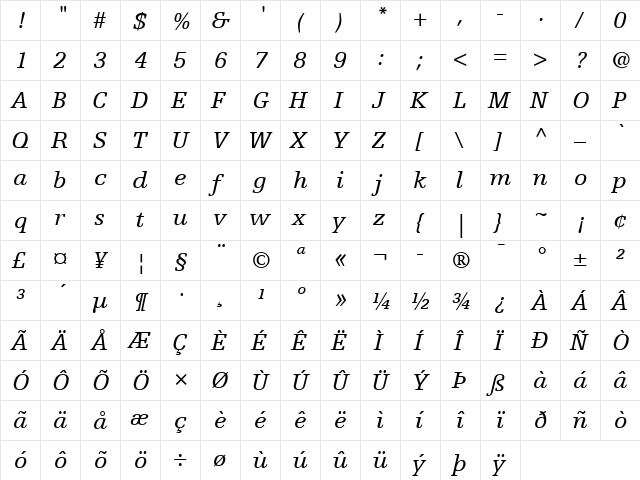
EgyptienneF LT Roman Italic Font Preview
Design Context for EgyptienneF LT Roman Typeface
EgyptienneF LT Roman offers clean, dependable letterforms without strong stylistic allegiance, making it a practical choice for designers who need flexibility. The slanted form adds forward momentum and visual energy. Its slender proportions lend an understated elegance to any composition.